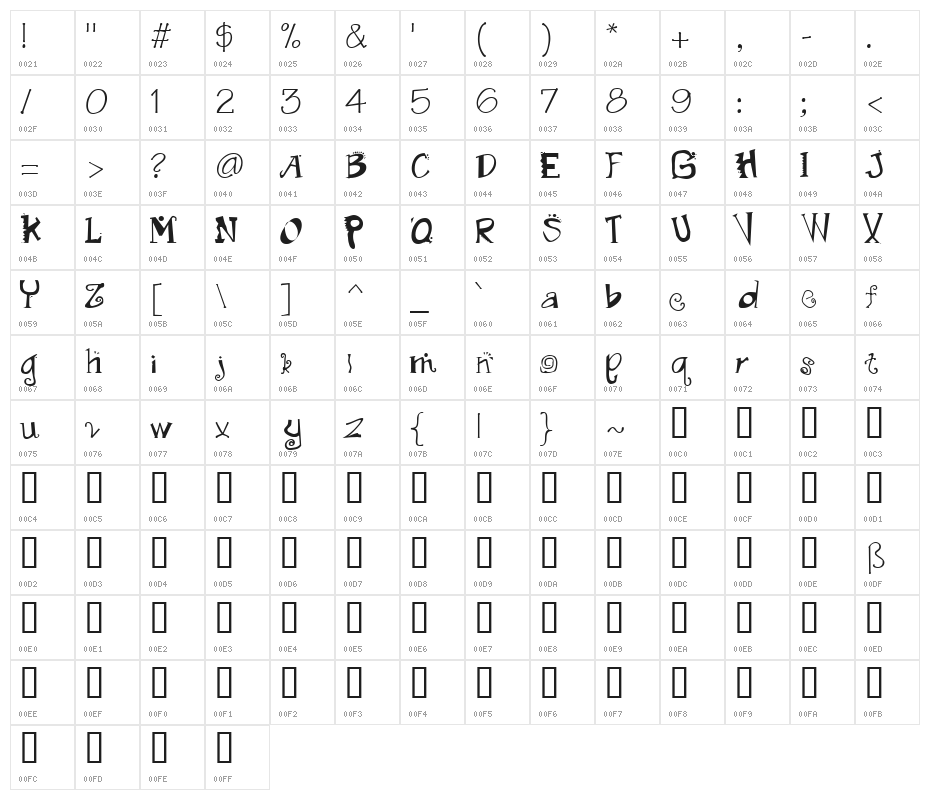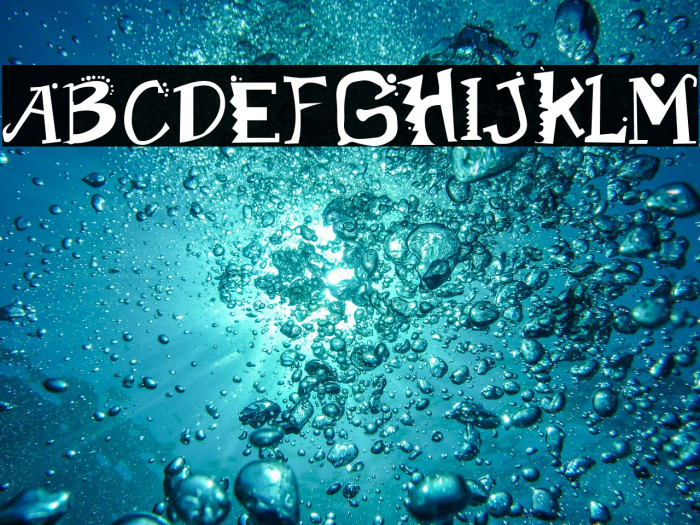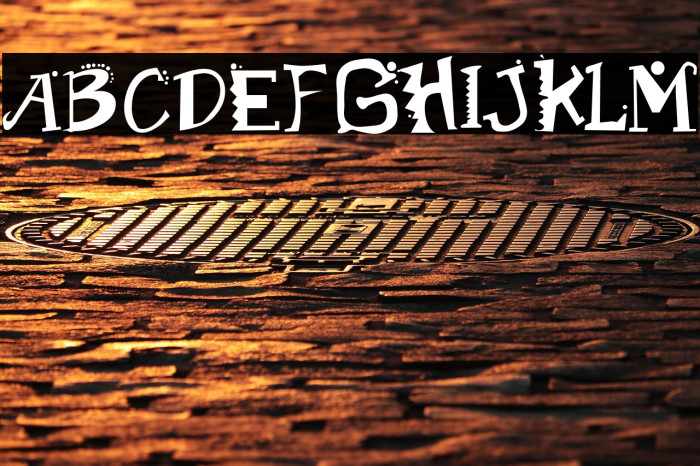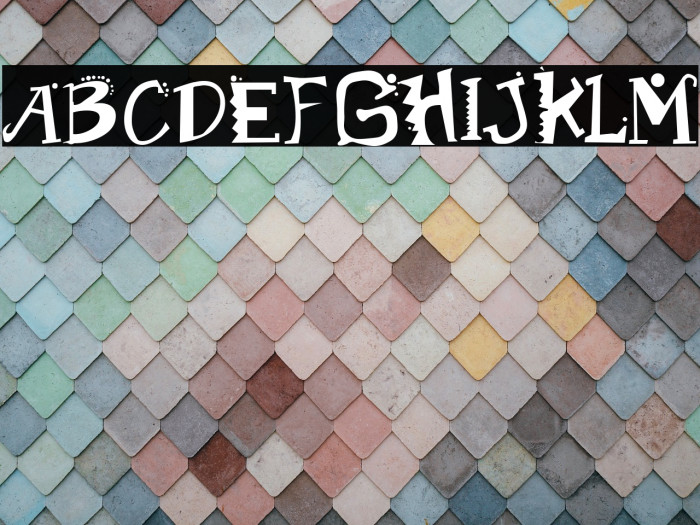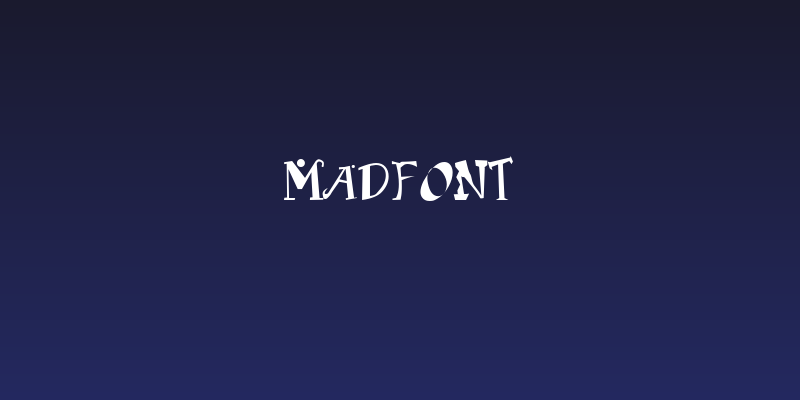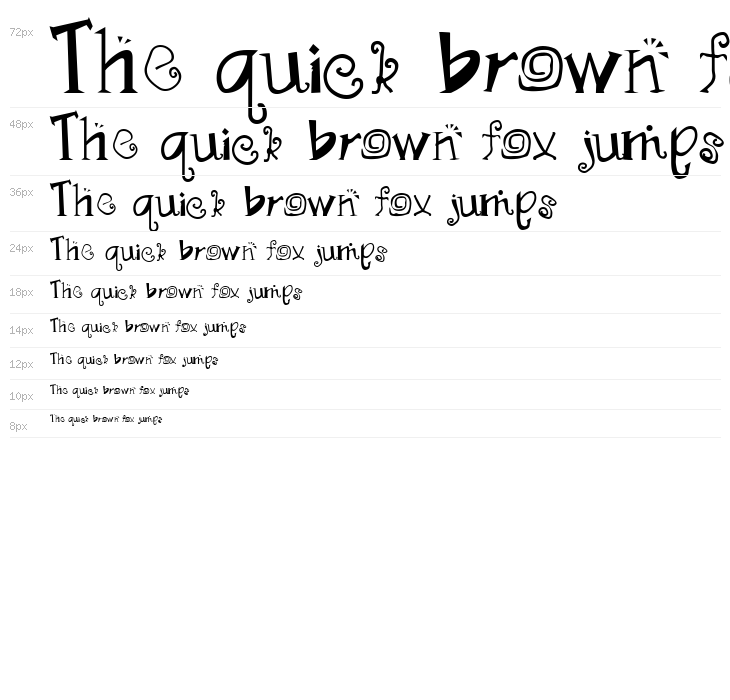
Madfont Font
Madfont Description
This font is a whimsical and playful typeface that features a variety of quirky and irregular shapes. Each character is uniquely designed with unexpected twists and embellishments, giving it a lively and animated appearance. The uppercase letters are bold and dynamic, often incorporating elements like dots, swirls, and spikes. The lowercase letters maintain a similar playful style, with some characters featuring exaggerated loops and curves. Numbers and special characters follow the same whimsical theme, making this font ideal for creative and fun projects. Its distinctive style is sure to capture attention and add a touch of humor and creativity to any design.
| Proposed Projects | Ideal for children's books, party invitations, playful branding, and creative posters. |